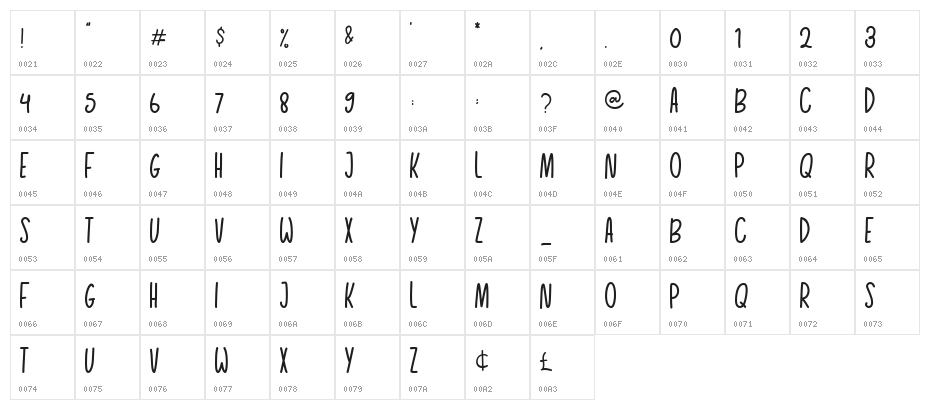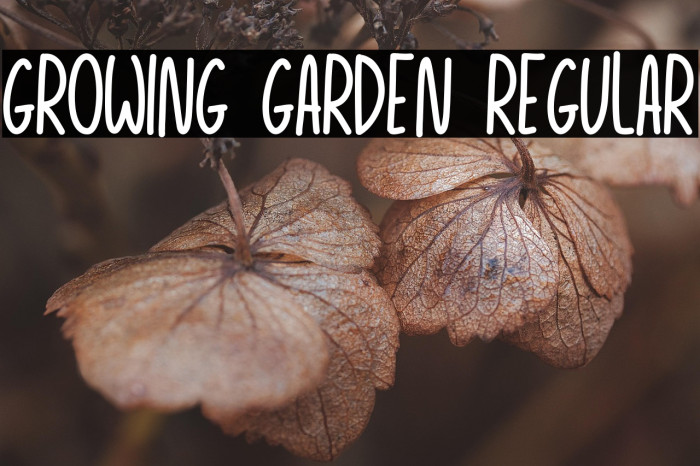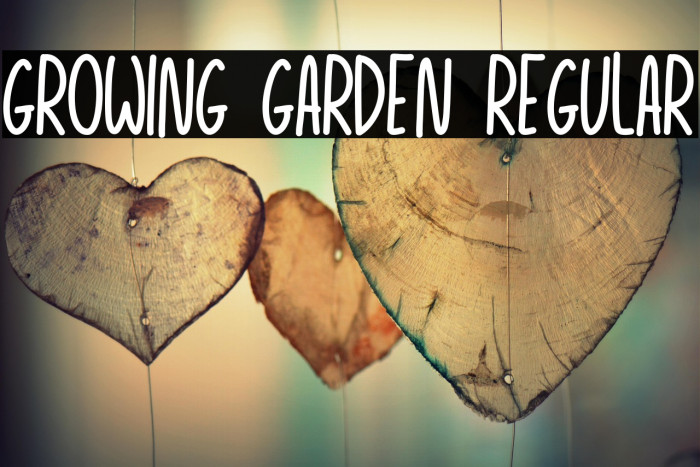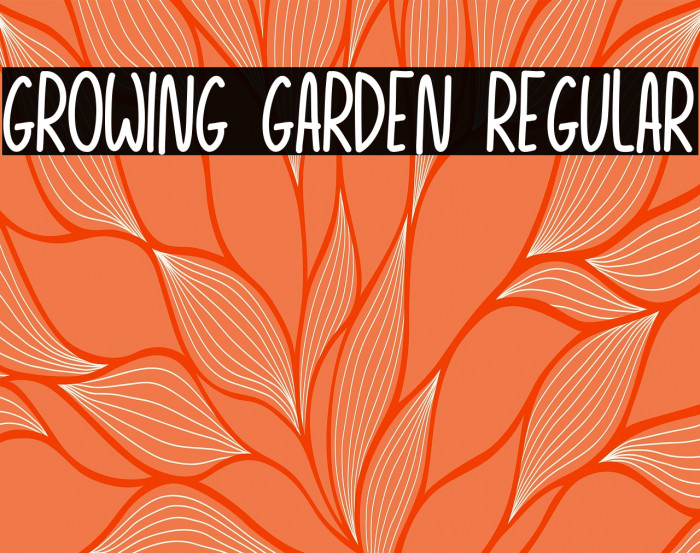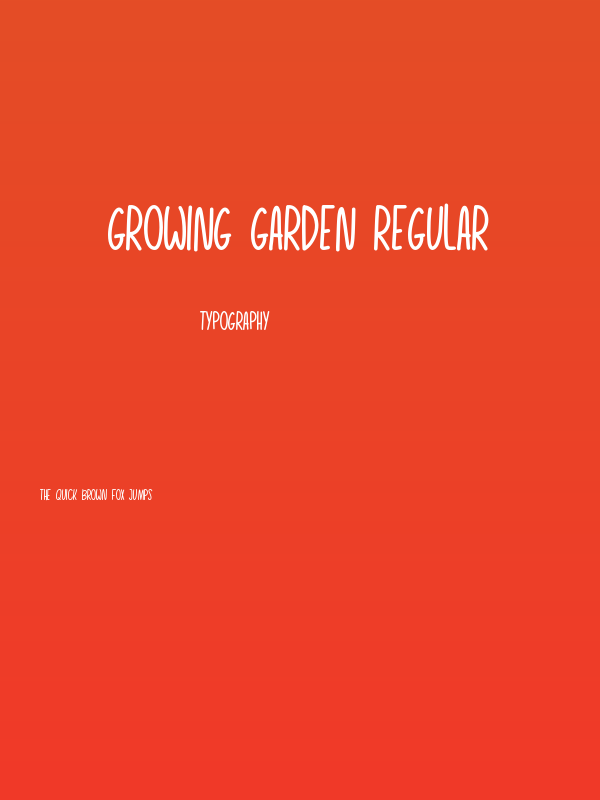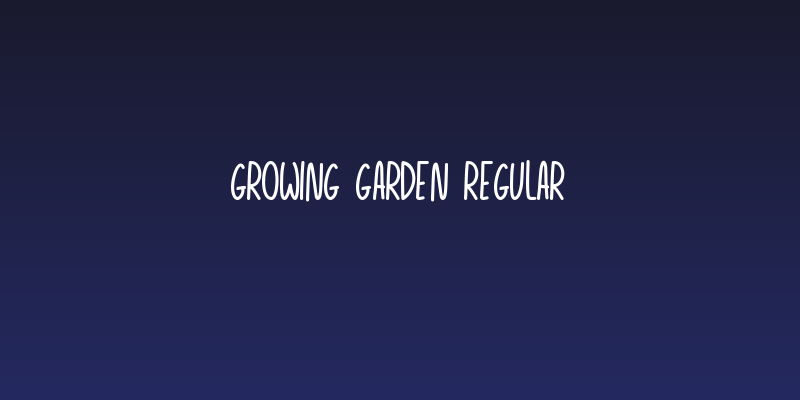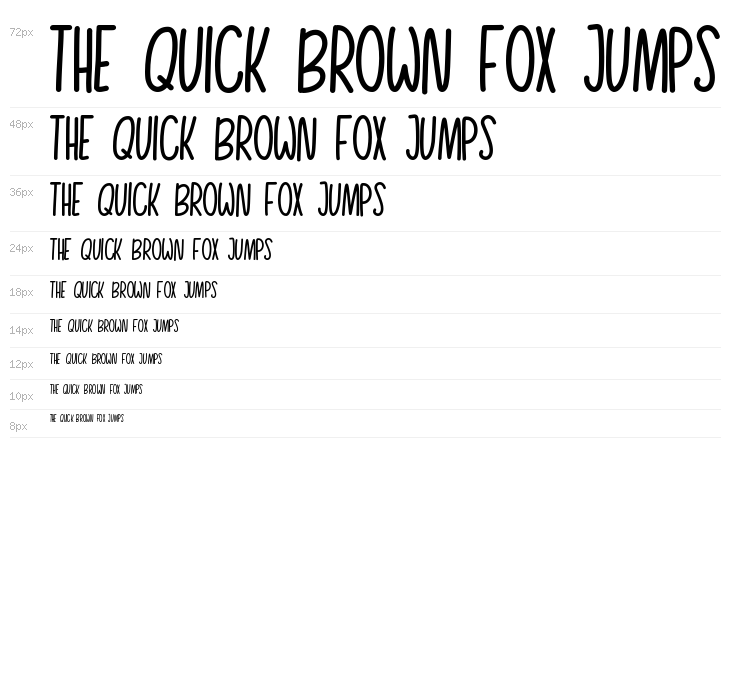
Growing Garden Regular Font
Growing Garden Regular Description
This font features a playful and organic style, characterized by its rounded and slightly irregular letterforms. The strokes are consistent in width, giving it a uniform appearance, while the slight slant and curvature add a sense of movement and friendliness. The uppercase and lowercase letters maintain a cohesive look, with the lowercase letters mirroring the playful nature of the uppercase. Numbers and special characters are designed to match the overall aesthetic, ensuring versatility across different types of text. This font is ideal for projects that require a casual and approachable feel.
| Proposed Projects | Ideal for children's books, playful branding, greeting cards, and casual invitations. |